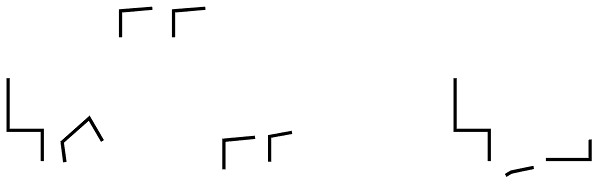
Tagged Two
This family is intended to be a universal font generator for languages of unknown civilizations or simply a tool for creating graffiti-like ornaments. Inspired by both my own paintings and drawings and graffiti. Set of 107 glyphs, available in 3...